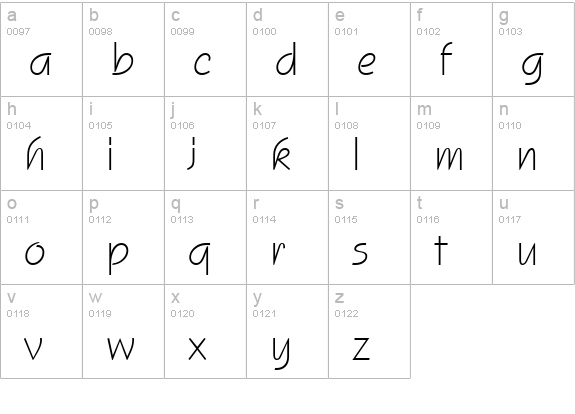
Scogin Font Details
Scogin font is a beautifully crafted typeface that exudes elegance and sophistication. Its sleek and modern design makes it perfect for a wide range of applications, from branding and logos to invitations and headlines. With its clean lines and balanced proportions, Scogin font effortlessly captures attention and adds a touch of refinement to any project. What sets Scogin font apart is not just its impeccable style, but also its versatility. Whether you need a bold and impactful display font or a subtle and understated body text, Scogin font has got you covered. Its wide range of weights and styles allows for endless creative possibilities, ensuring that you can find the perfect fit for any design concept. And the best part? Scogin font is completely free! That's right, this stunning typeface is freely available to download at FontsMarket.com. Now you can add a touch of class to your designs without breaking the bank. With Scogin font, you can elevate your projects to new heights and make a lasting impression, all while saving on costs. So why wait? Discover the beauty and versatility of Scogin font today. Download it for free at FontsMarket.com and unlock a world of design possibilities. Whether you're a graphic designer, a creative professional, or simply someone who appreciates the power of a well-crafted font, Scogin font is a must-have addition to your toolkit. Don't miss out on this incredible opportunity to enhance your designs and make them truly unforgettable. Get Scogin font now and let your creativity soar!